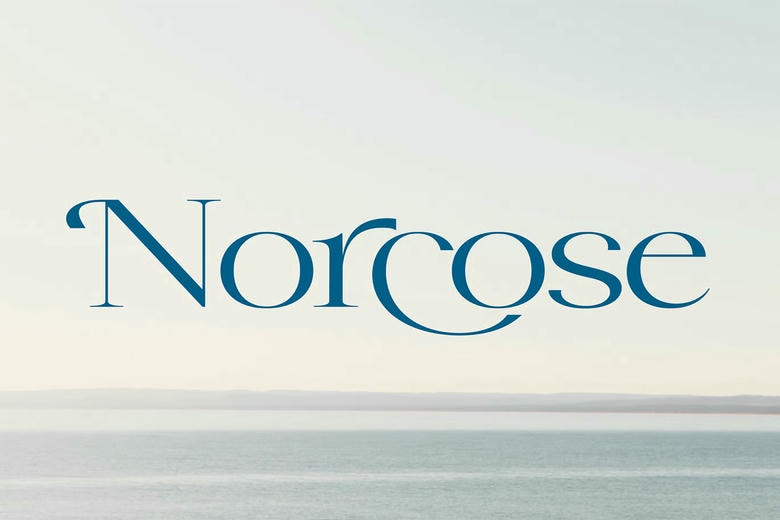
Norcose Font
Norcose is a serif font which is a classy font that adds elegance to your text. It will bring some kind of classiness to a given project with its smooth lines and elegant curves. It is very popular with fashion magazines, stylish invitations or high-end branding as it is full of confidence and sophistication.
You want an old-fashioned appeal or a cool touch, you will definitely make your creation higher with the modest grace of its.
Norcose Serif Font